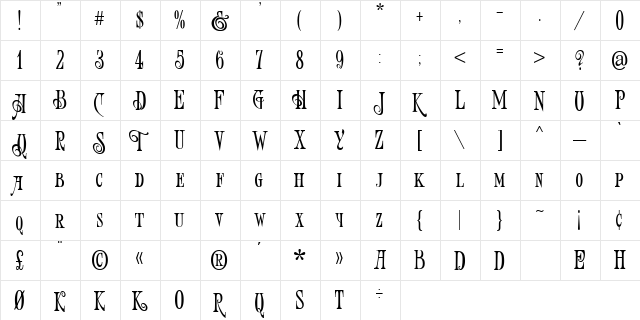
Art-Victorian Regular
| Foundry | Gophmann A.L. (cyr.code page) |
Design Context for Art-Victorian Typeface
Art-Victorian is a composed and adaptable typeface that performs quietly and consistently across a wide range of design contexts.